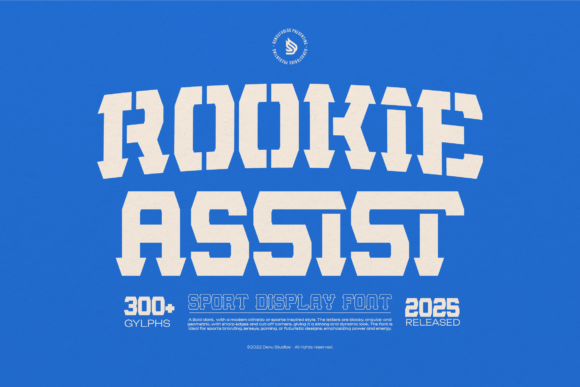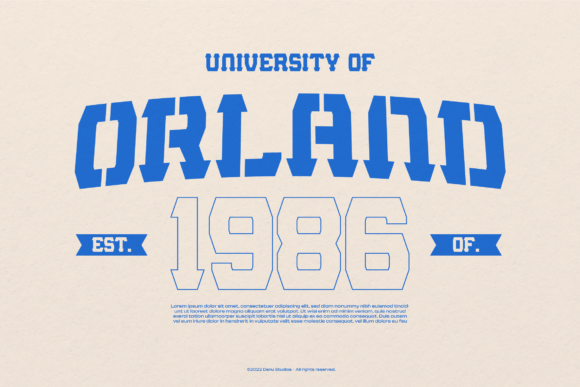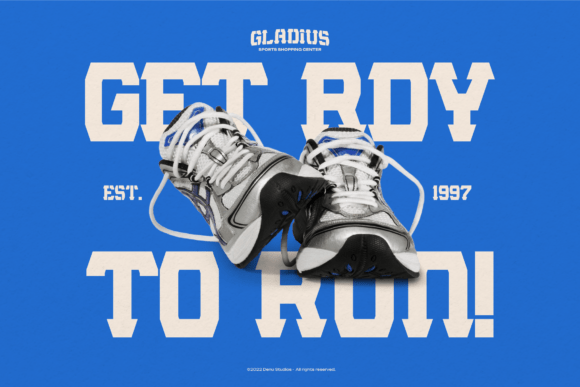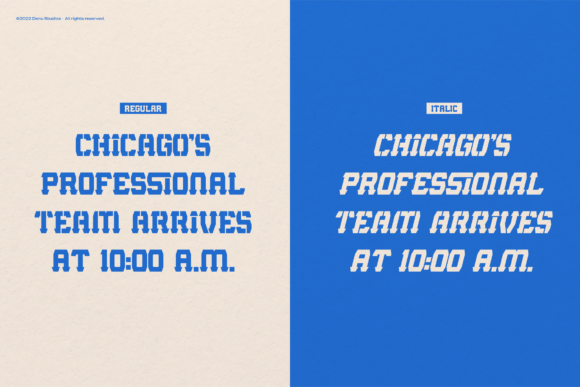
Rookie Assist Font
About the Rookie Assist Font
Discover the charm of Rookie Assist Font. This font is a perfect blend of modern aesthetics and classic appeal. Rookie Assist is a sports display font, suitable for any projects such as: logos, branding projects, homeware designs, product packaging, mugs, quotes, posters, shopping bags, t-shirts, book covers, name card, invitation cards, greeting cards, label, photography, watermark, special events, and all your other lovely projects that need a Sport Display Font taste.
Rookie Assist’s bold, energetic personality makes it ideal for headlines, posters, and branding projects requiring a dynamic feel. It excels in applications where impact is key, such as sports-related logos, event signage, or product packaging for active lifestyle brands. However, its strong character makes it less suitable for body text or UI elements where readability over long stretches is paramount.
Pairing Rookie Assist effectively depends on the desired balance. For a more playful feel, consider pairing it with a rounded sans-serif like Bebas Neue. To create a sophisticated contrast, a clean, geometric sans-serif such as Futura or a classic serif like Garamond would complement its robust forms.
The font’s overall energy best suits brands focused on strength, speed, and competition – think athletic apparel, energy drinks, or gaming companies. Avoid using it for projects requiring a delicate or refined aesthetic.